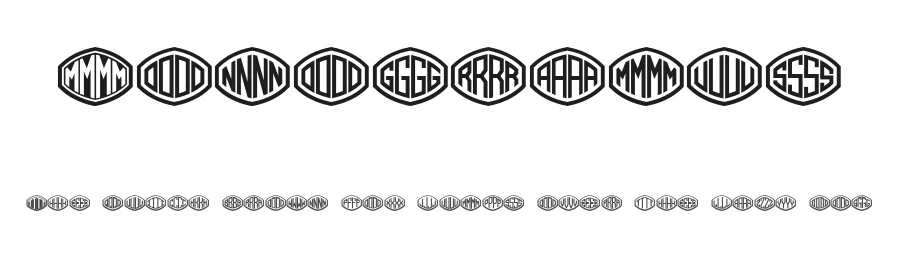
About Monograma Font
Monograma is a decorative font designed by Vladimir Nikolic. It includes 56 glyphs, a regular weight, TTF (TrueType) format, and 89 languages. Monograma is free to download; check the license details on this page before commercial use. Decorative fonts like Monograma work best for logos, posters, packaging, and standout headlines.
Monograma Font is a decorative font that shines as a display or heading face. Pair it with a clean sans-serif or serif font for body text β the contrast creates a clear hierarchy while the two styles stay balanced and easy to read.